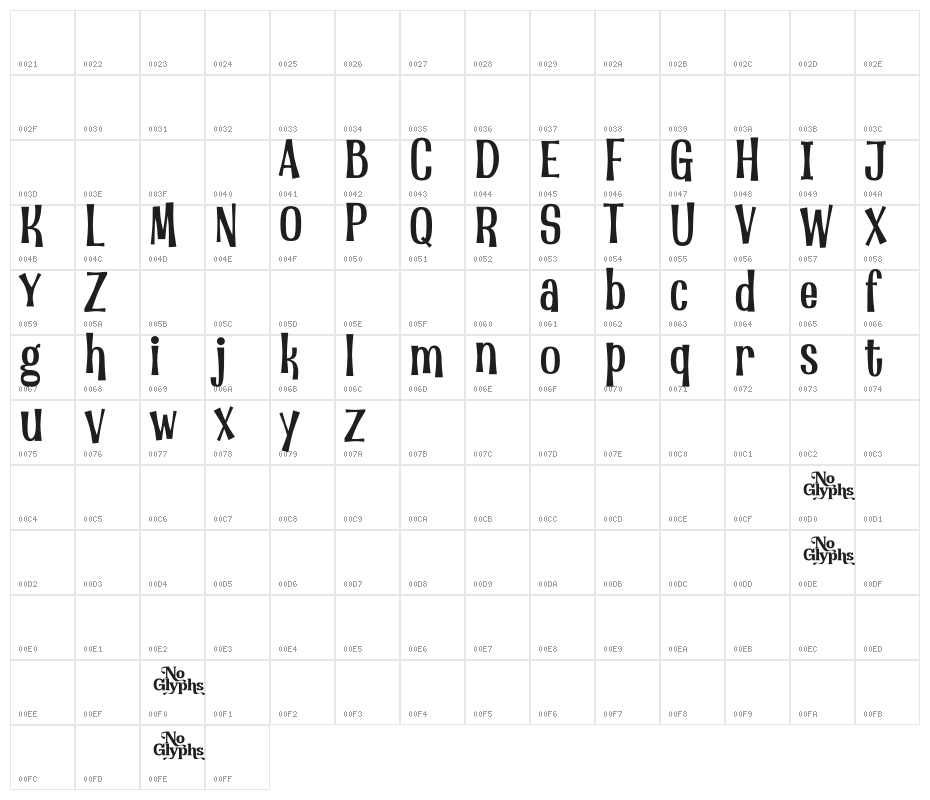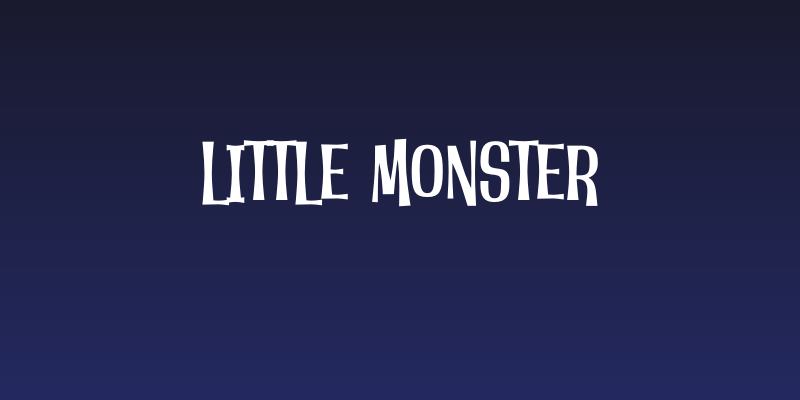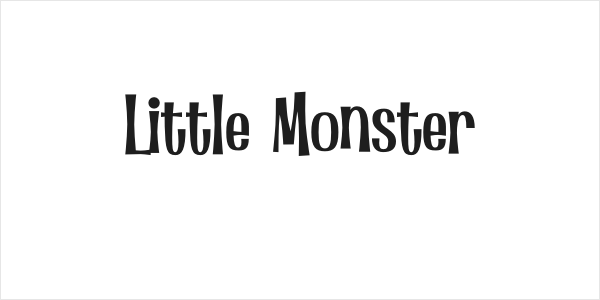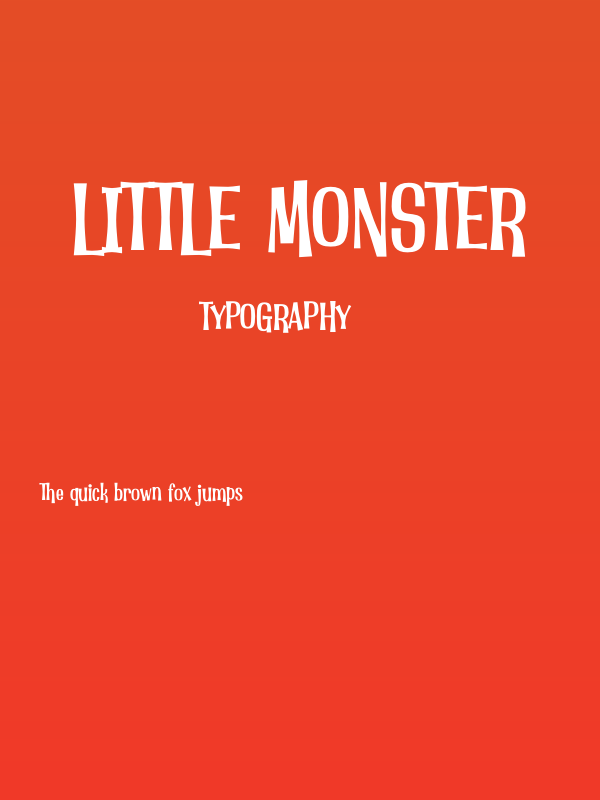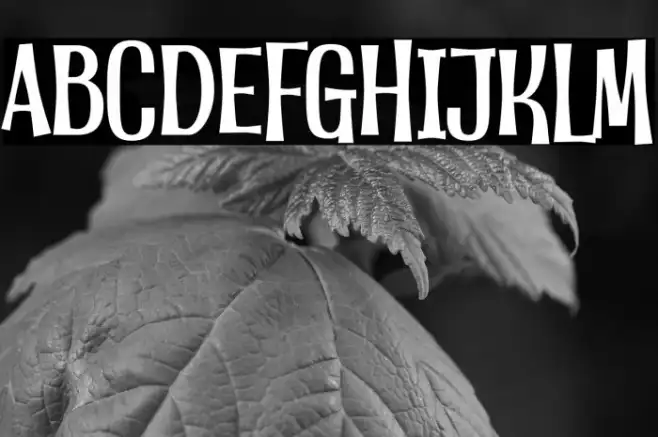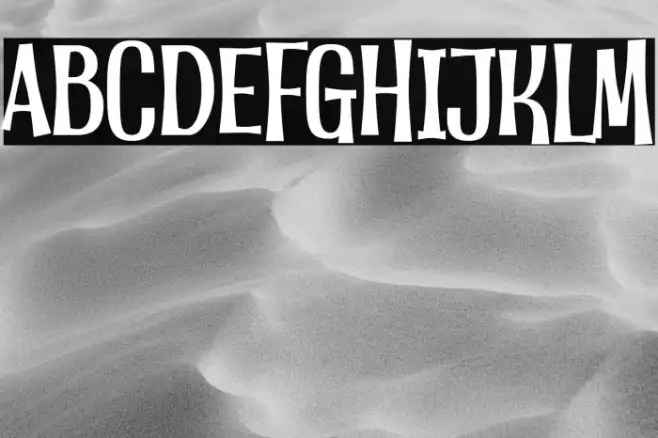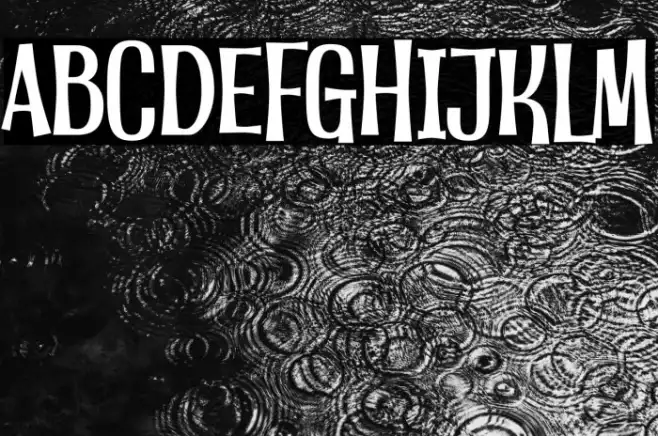
Little Monster Font
Little Monster Description
This playful and quirky font features exaggerated, uneven strokes that give it a whimsical and energetic appearance. The characters are bold and slightly irregular, with varying heights and widths that create a sense of movement and fun. The uppercase letters are tall and commanding, while the lowercase letters maintain a consistent style with a touch of unpredictability. The overall design is reminiscent of hand-drawn lettering, making it ideal for projects that require a lively and informal touch. The font's unique character shapes and bold presence make it stand out, perfect for creative and artistic applications.